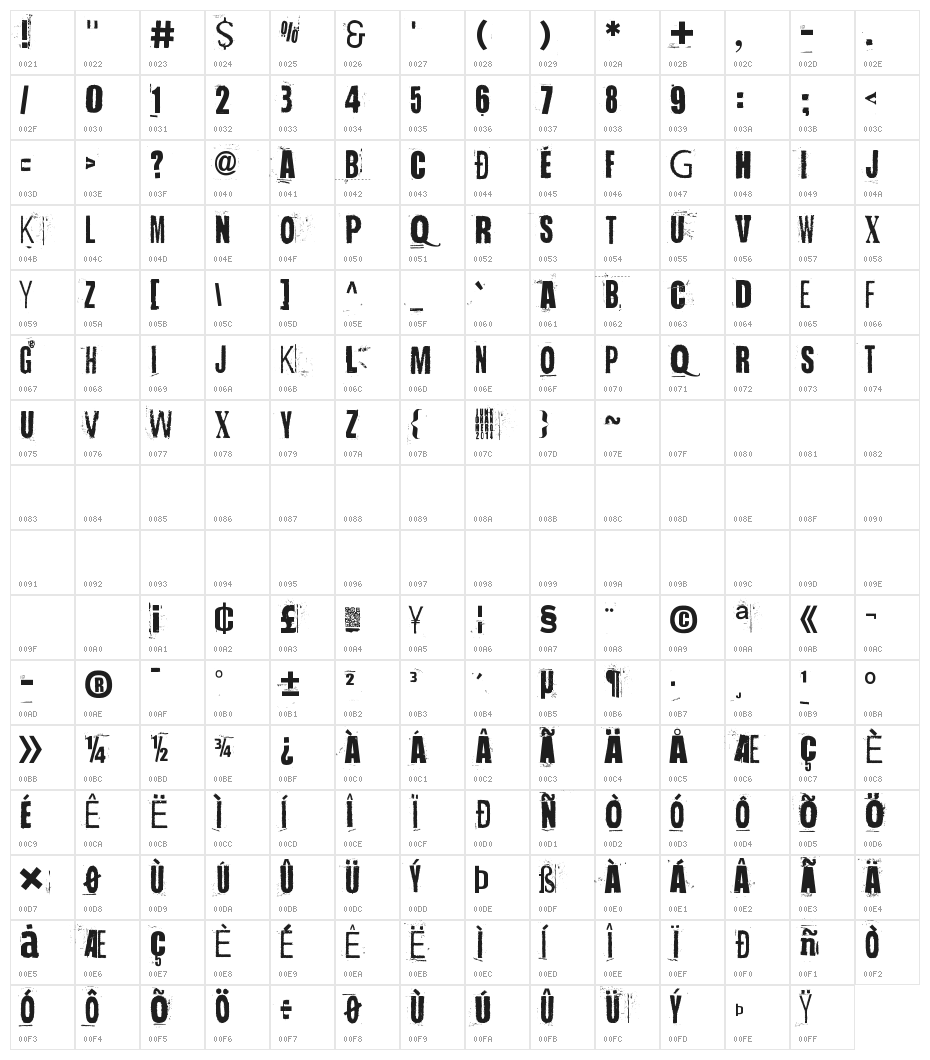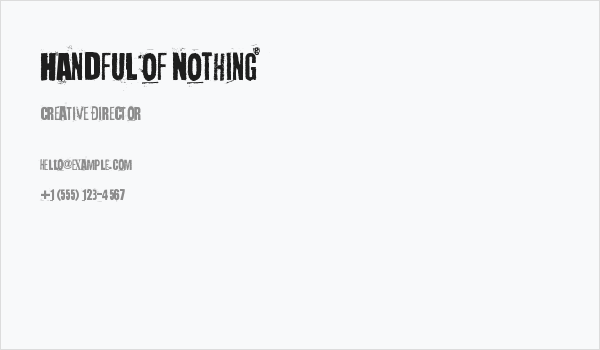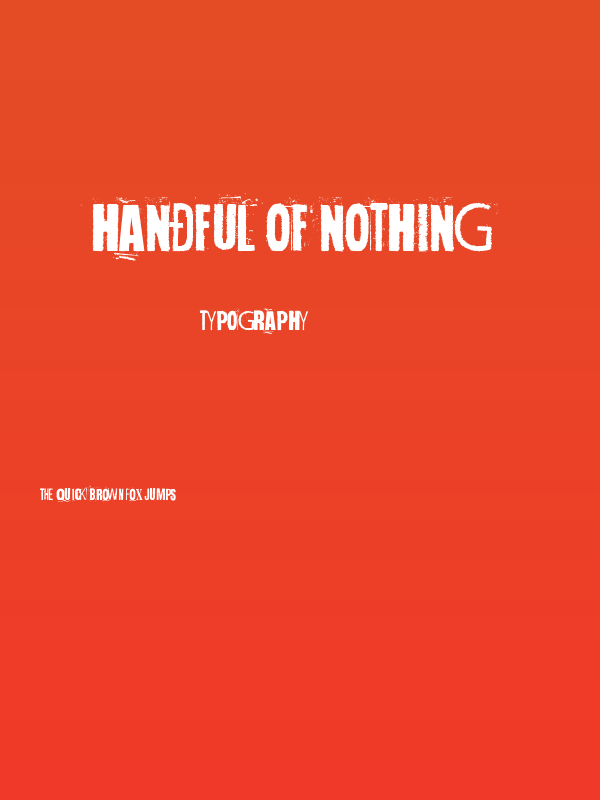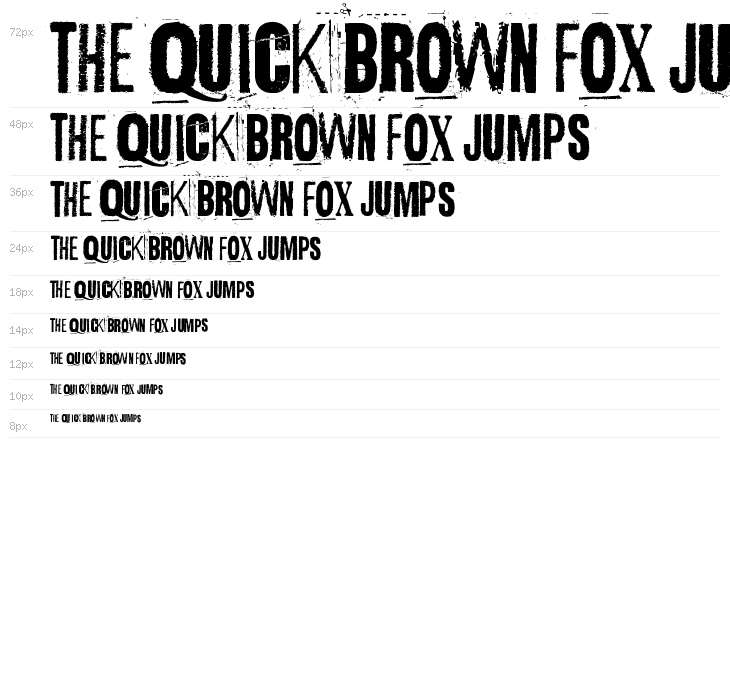
Handful of Nothing Font
Handful of Nothing Description
This font features a distressed, grunge aesthetic with a bold and impactful presence. The characters are heavily textured, giving the impression of wear and tear, as if they have been stamped or printed with a rough surface. The uppercase letters are prominent and slightly condensed, while the lowercase letters maintain a consistent style. Numbers and special characters follow the same rugged design, adding to the overall cohesive look. The font's unique style makes it stand out, perfect for projects that require a bold statement or an edgy, urban feel.
| Overall Style | Grunge, Urban, Edgy |
| Proposed Projects | Ideal for album covers, posters, streetwear branding, or any project needing a bold, gritty look. |